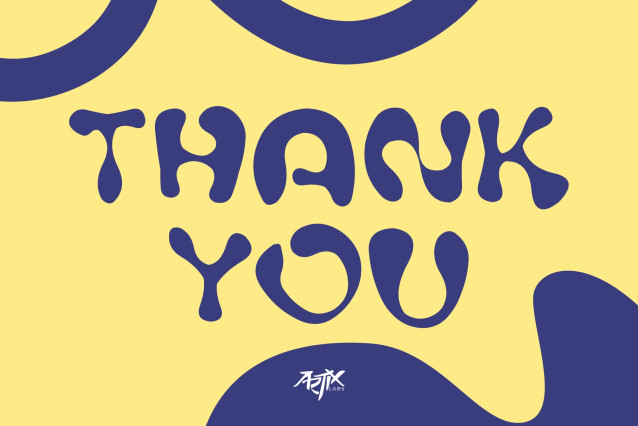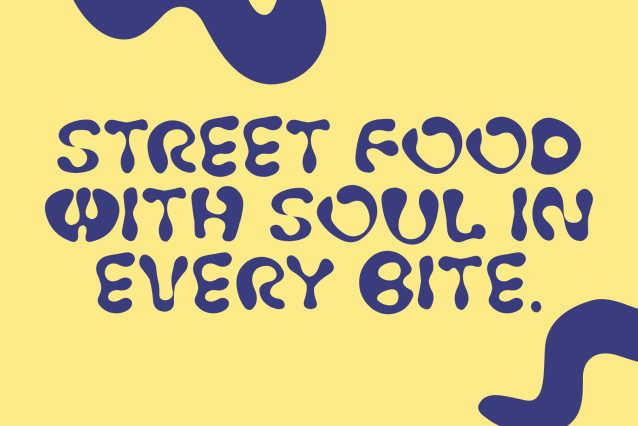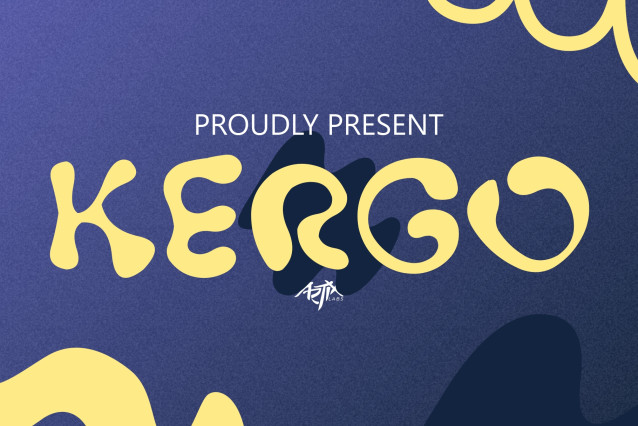
Introducing Kergo Groovy Retro Font –This Font can be used for any variety of purposes, such as: street photography, Ceremony, Packaging Products, Logo Type, Branding, T-Shirt Design, Website/Blog, Headline Magazine, Brochures and also can be used for other purpose.
This Font Template contains Urban, Street, Liar, Expressive, Creative, Professional and Unique Concept.